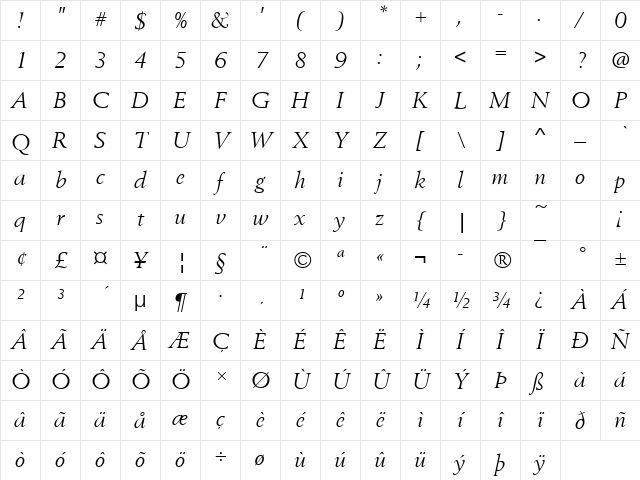
Berling Becker is a composed and adaptable typeface that performs quietly and consistently across a wide range of design contexts. The slanted form adds forward momentum and visual energy.